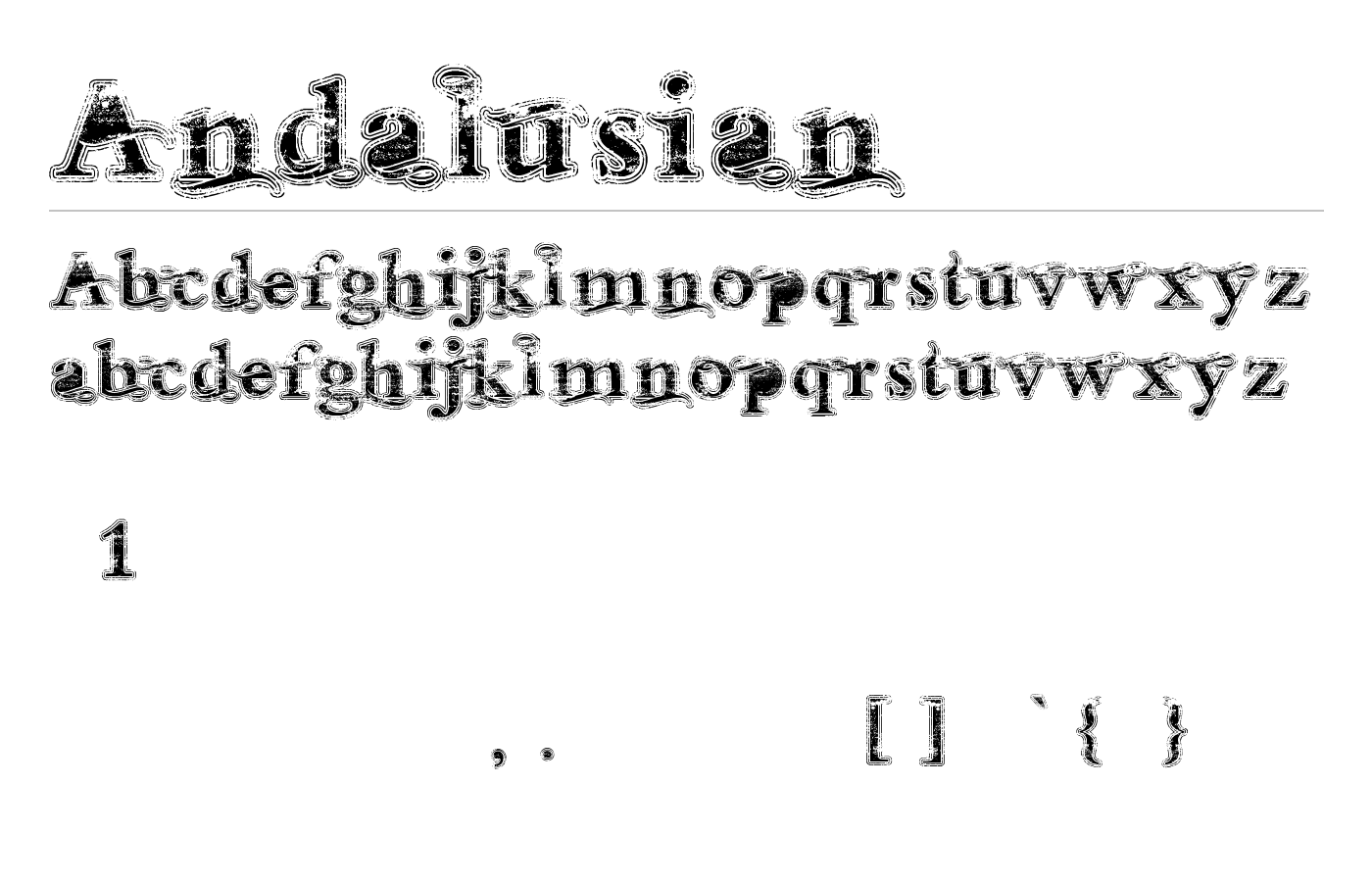
Andalusian is a decorative serif font with a vintage, ornamental style characterized by bold weight, moderate contrast, and elaborate swashes that add a distinctive flourish to its letterforms. Its design features bracketed serifs and a slightly condensed width, making it ideal for eye-catching headlines, logos, and branding projects that seek an elegant yet historic charm. This font shines in contexts where a dramatic, classic look is desired, such as vintage packaging, posters, or editorial headings.
Andalusian Font
About Andalusian Font